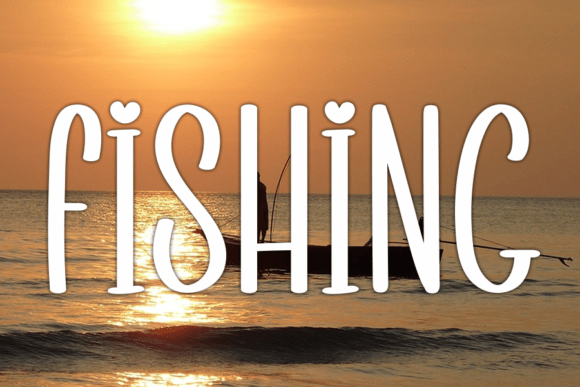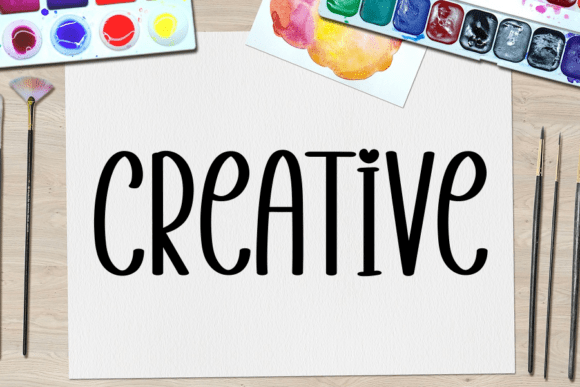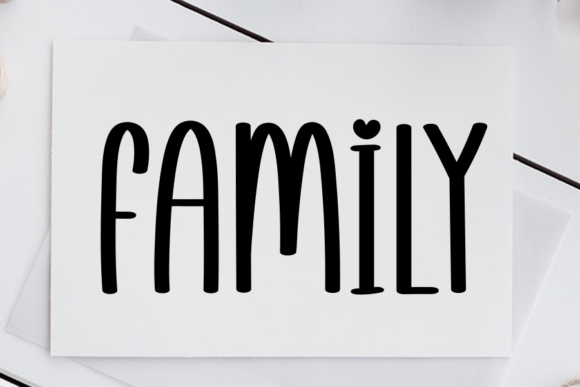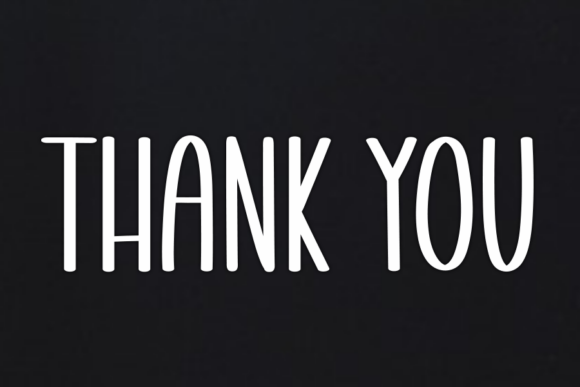
Fashion Font: Elevate Your Designs with a Simple yet Elegant Handwritten Style
Are you on the lookout for a font that can add a touch of simplicity and natural elegance to your designs? Look no further than the Fashion Font, a beautiful handwritten font that is versatile, easy to read, and perfect for a wide range of applications. In this article, we’ll dive into the world of Fashion Font, exploring its features, uses, and benefits, and showing you how it can elevate your next project.
What is Fashion Font?
Fashion Font is a simple handwritten font designed to bring a sense of effortless style and sophistication to your designs. With its clean lines, flowing curves, and natural feel, this font is perfect for designers and crafters who want to add a personal touch to their work. Whether you’re creating greeting cards, headlines, or any other type of design, Fashion Font is guaranteed to make your project stand out.
Key Features of Fashion Font
So, what makes Fashion Font so special? Here are just a few of its key features:
- Handwritten style: Fashion Font has a beautiful, handwritten feel that’s perfect for adding a personal touch to your designs.
- Versatile: This font is incredibly versatile, making it suitable for a wide range of applications, from greeting cards to headlines, and more.
- Easy to read: Despite its handwritten style, Fashion Font is incredibly easy to read, making it perfect for designs where clarity is key.
- Simple and natural feel: Fashion Font has a simple, natural feel that’s guaranteed to add a touch of elegance to your designs.
Uses of Fashion Font
So, what can you use Fashion Font for? The possibilities are endless! Here are just a few ideas to get you started:
- Greeting cards: Add a personal touch to your greeting cards with Fashion Font, perfect for birthdays, weddings, and more.
- Headlines: Use Fashion Font to create eye-catching headlines for your blog posts, articles, or social media graphics.
- Branding: Fashion Font is perfect for branding projects, such as logos, business cards, and letterheads.
- Invitations: Create beautiful invitations for parties, events, or weddings with Fashion Font.
- DIY projects: Fashion Font is perfect for crafters who love to create handmade DIY projects, such as scrapbooking, journaling, or crafting.
Benefits of Using Fashion Font
So, why should you choose Fashion Font for your next project? Here are just a few benefits:
- Unique and creative: Fashion Font adds a unique and creative touch to your designs, setting them apart from the rest.
- Easily readable: Fashion Font is incredibly easy to read, making it perfect for designs where clarity is key.
- Versatile: This font is incredibly versatile, making it suitable for a wide range of applications.
- Time-saving: With Fashion Font, you can create beautiful designs in no time, saving you time and effort.
Tips for Using Fashion Font
Here are a few tips for using Fashion Font to get the most out of this beautiful font:
- Pair with other fonts: Fashion Font pairs perfectly with other fonts, such as sans-serif or serif fonts, to create a unique and interesting design.
- Experiment with colors: Fashion Font looks great in a variety of colors, so don’t be afraid to experiment and find the perfect color for your design.
- Use it sparingly: While Fashion Font is beautiful, it’s best used sparingly to avoid overwhelming your design.
In conclusion, Fashion Font is a beautiful, simple handwritten font that’s perfect for designers and crafters who want to add a touch of elegance and sophistication to their designs. With its versatile style, easy readability, and natural feel, Fashion Font is guaranteed to elevate your next project. So why not give it a try and see the difference it can make?